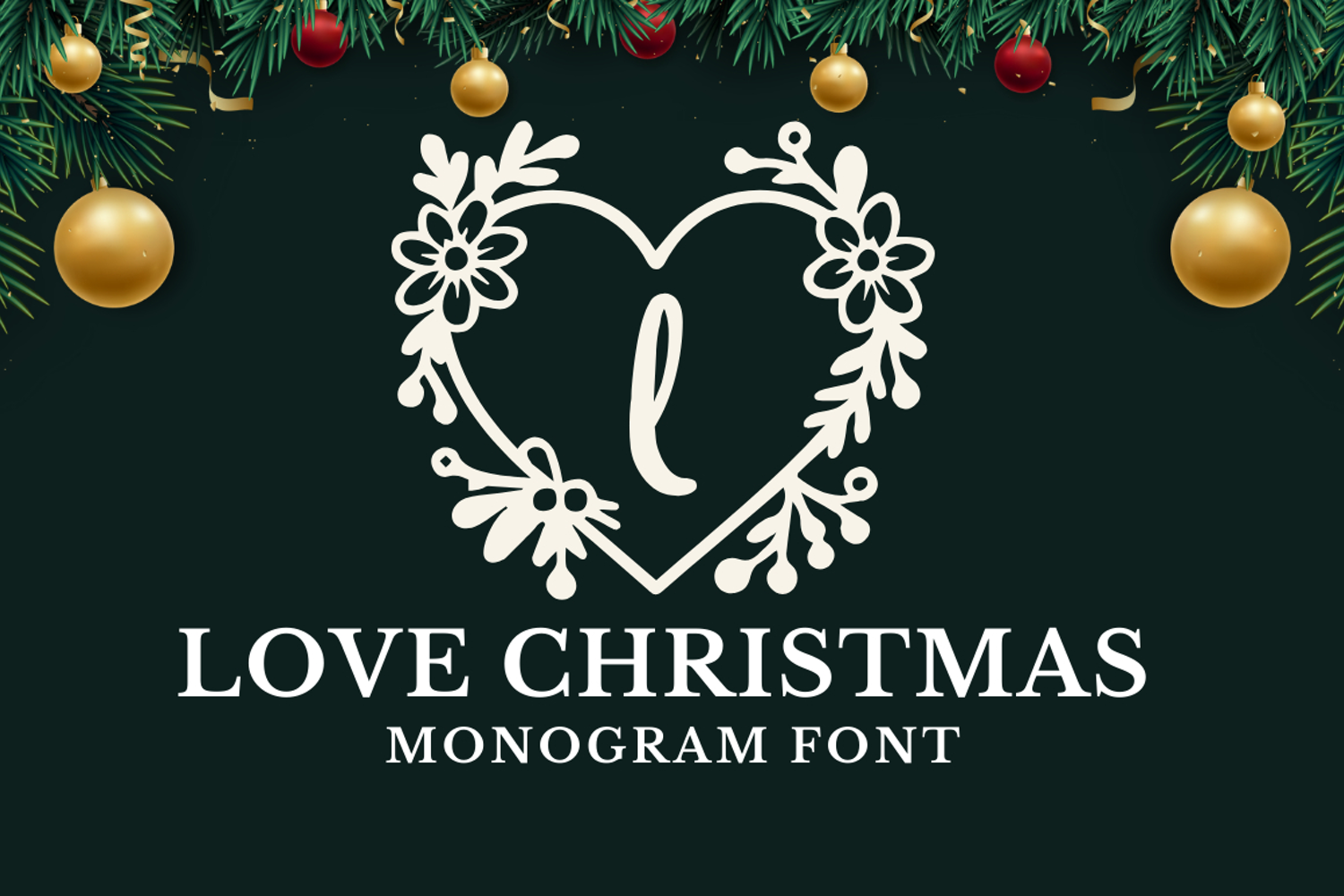
Love Christmas is a festive monogram font designed for easy holiday initials. It includes uppercase, lowercase, numbers, and winter floral monogram frames so you can build beautiful single-letter marks in seconds.
Need a frame without a letter? Type “.” or “,” to place the frame only—perfect for adding custom initials later in your design app.